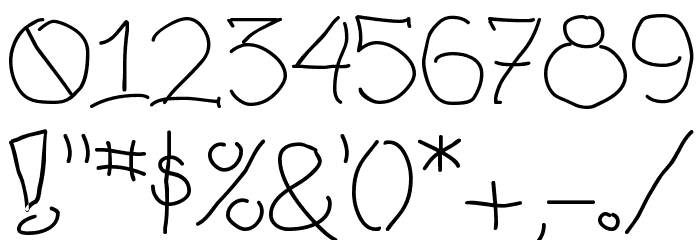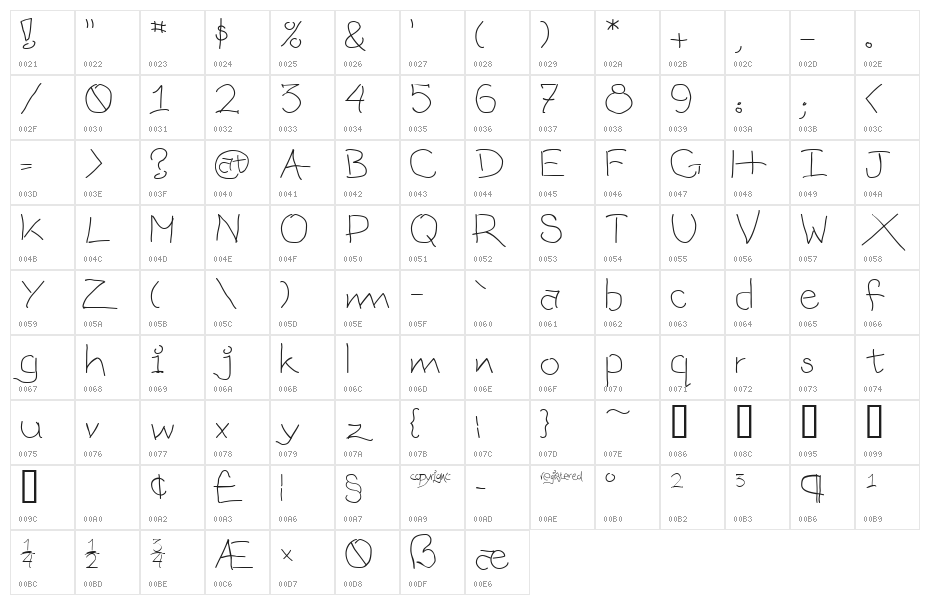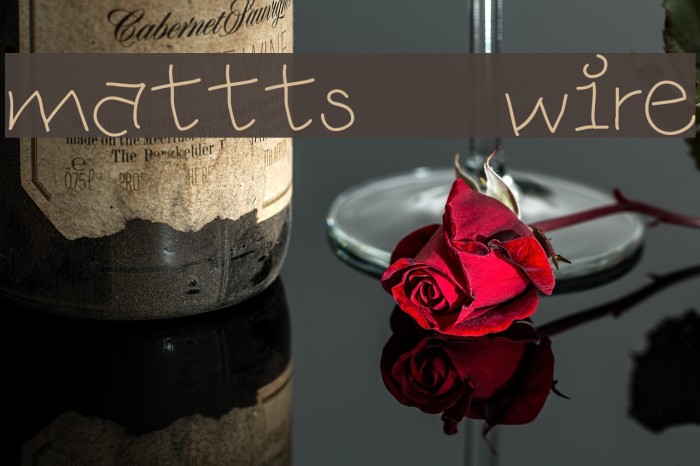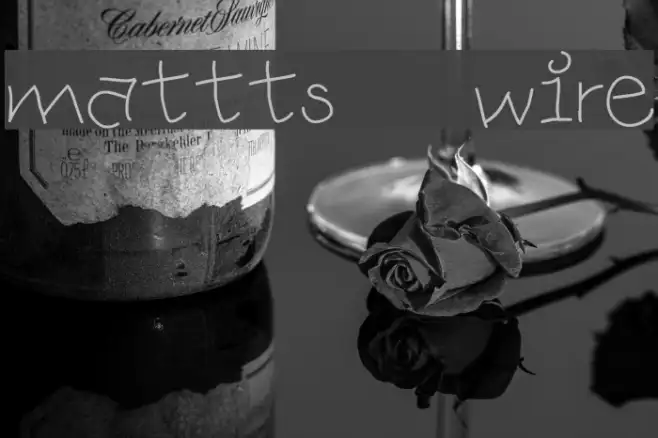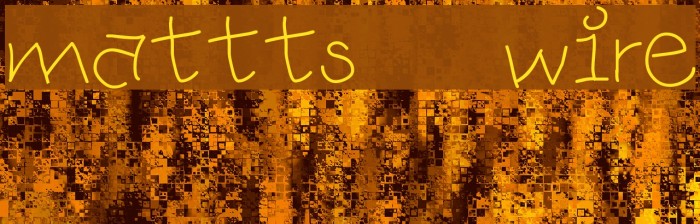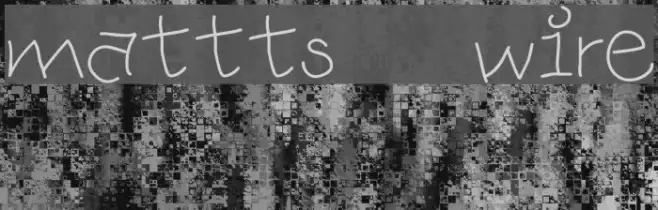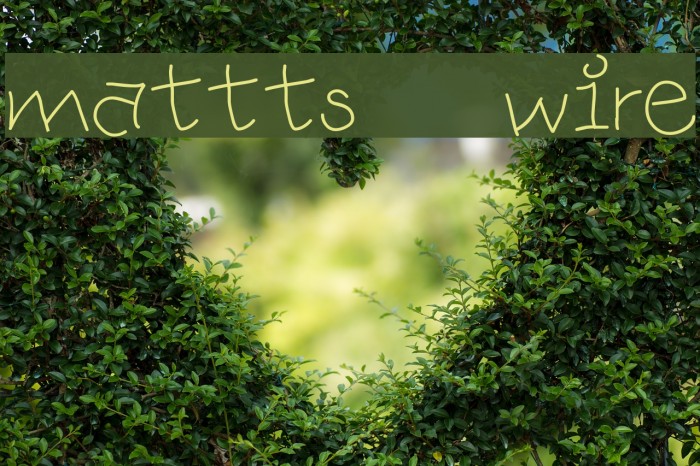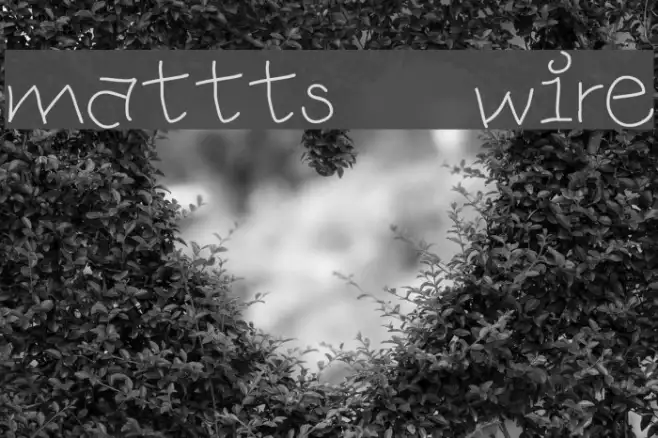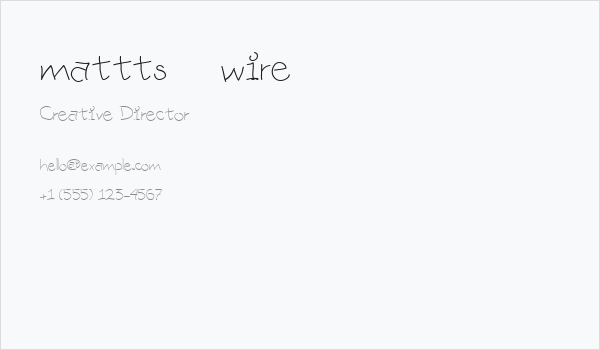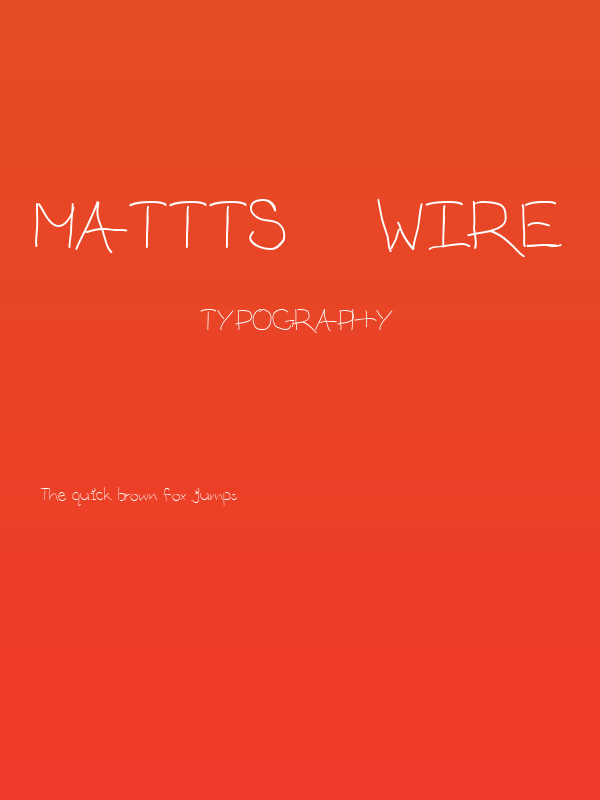
mattts wire Font
mattts wire Description
This font features a playful and whimsical style, characterized by its hand-drawn appearance. The letters have a casual, uneven stroke that gives them a lively and informal feel. The uppercase and lowercase letters maintain a consistent style, with a slight slant and irregularity that adds to the charm. The numerals and special characters follow the same playful design, making the font suitable for creative and informal projects. The overall look is light and airy, with a sense of movement and spontaneity.
| Proposed Projects | Ideal for children's books, greeting cards, playful branding, and creative posters. |